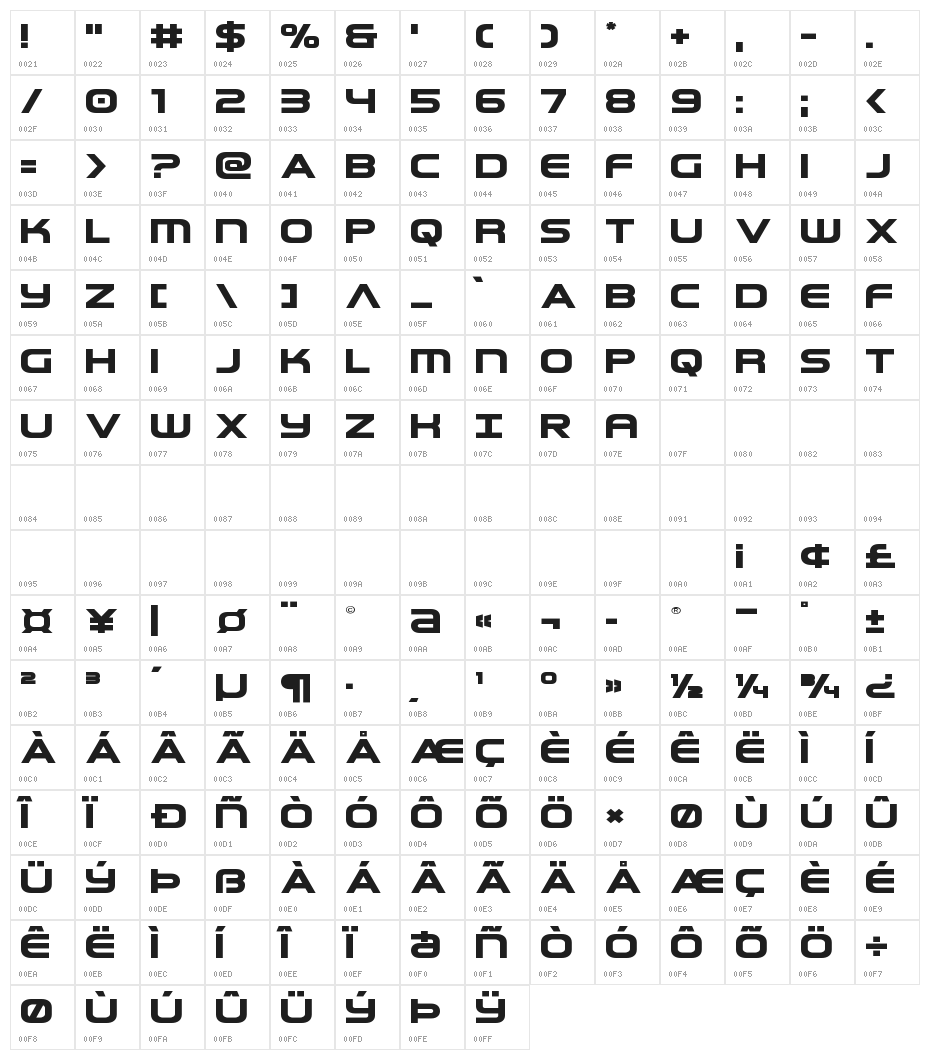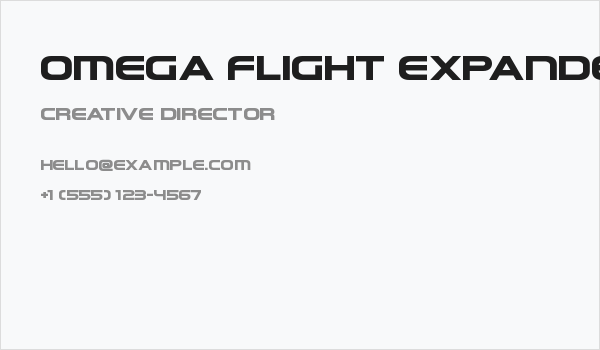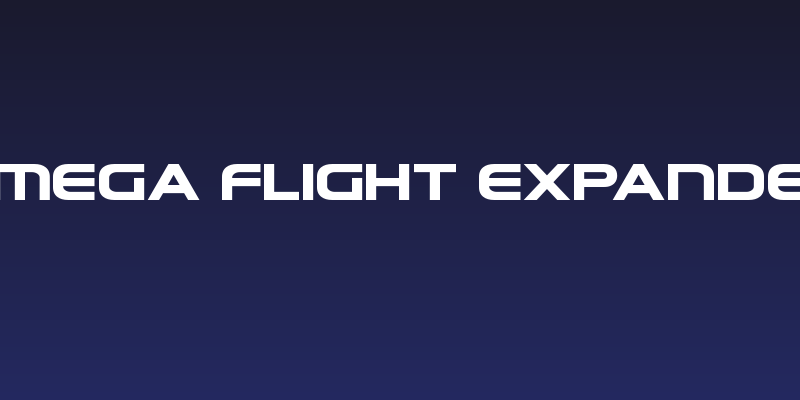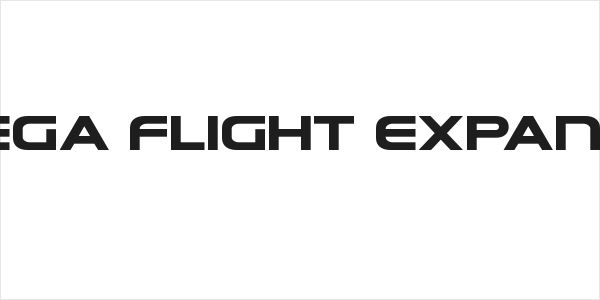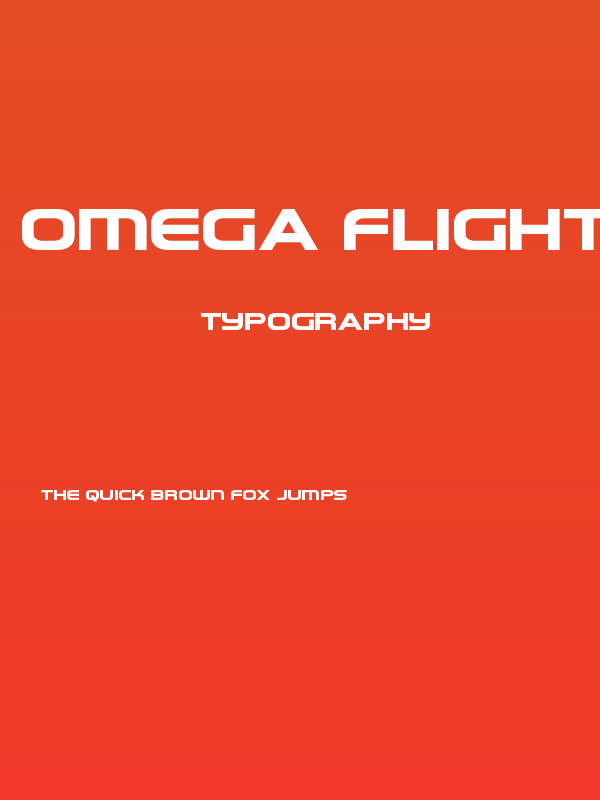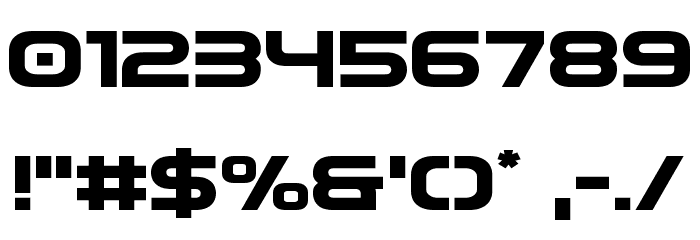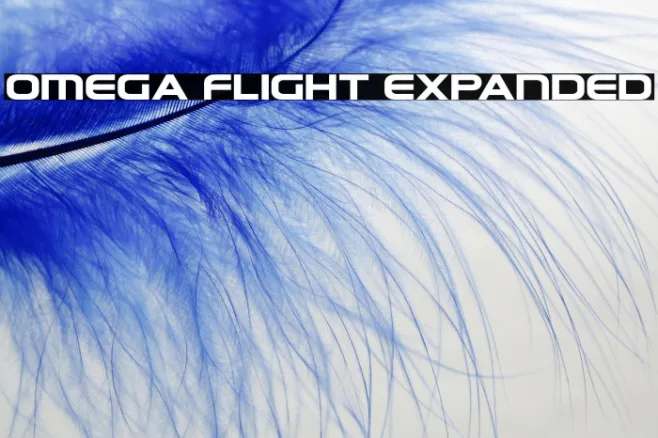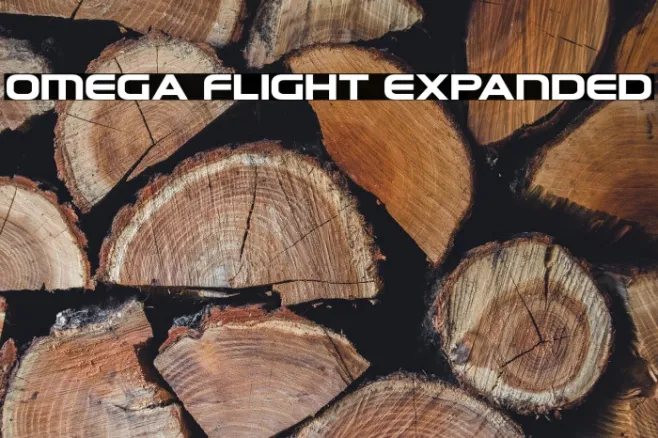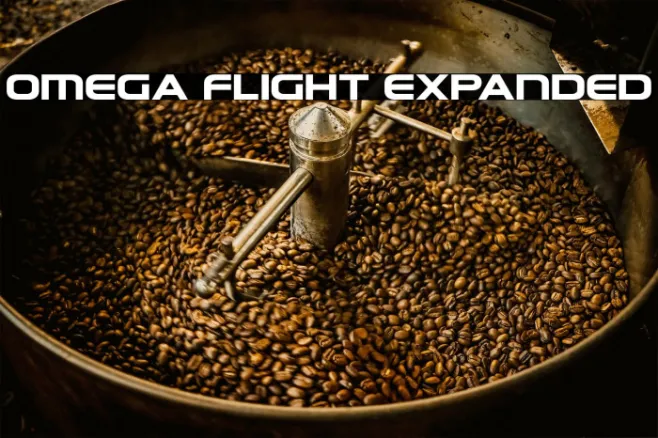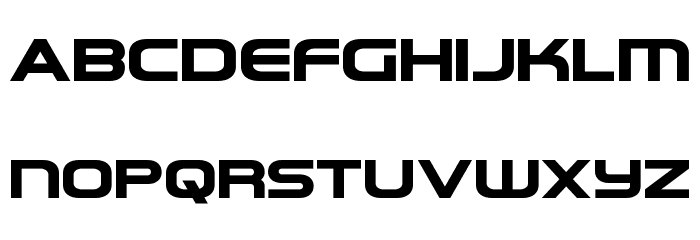
Omega Flight Expanded Font
Omega Flight Expanded Description
This font features a bold and futuristic design with expanded letterforms that convey a sense of modernity and innovation. The characters are uniformly wide, with a geometric and angular style that emphasizes clarity and readability. The uppercase and lowercase letters maintain a consistent height, while the numerals and special characters are designed to match the overall aesthetic. The font's clean lines and sharp edges make it suitable for projects that require a contemporary and tech-savvy appearance.